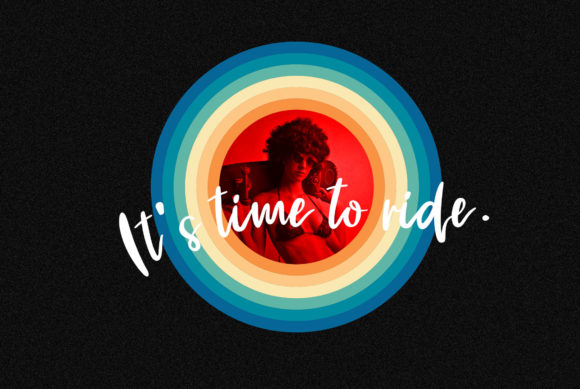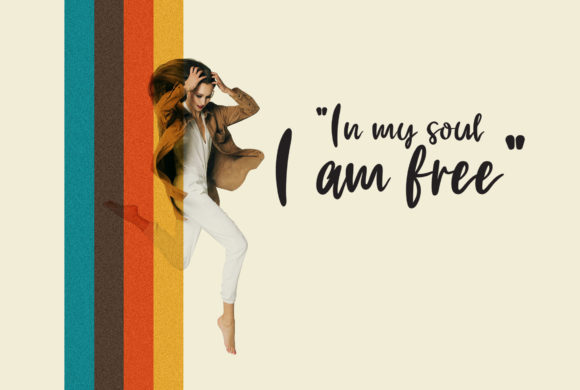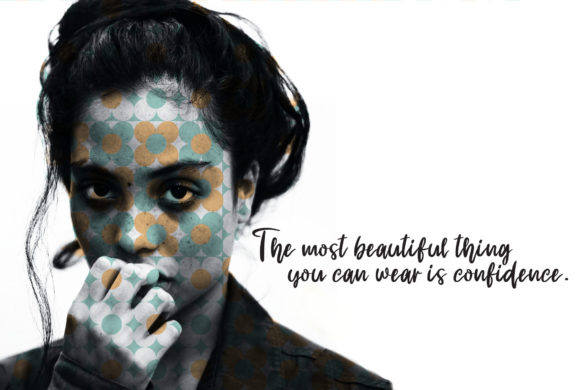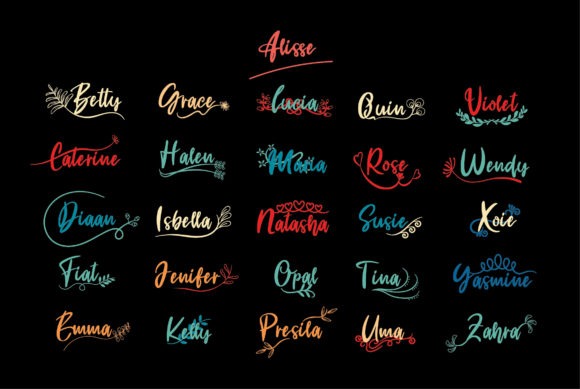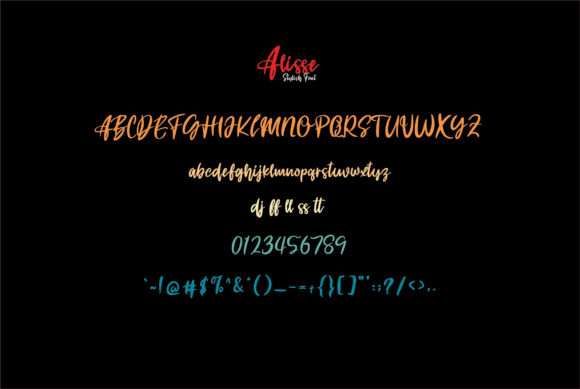
Unlock the Luxury in Your Design
As designers, we’ve all been there – staring at a blank canvas, eager to bring our vision to life. But what if that perfect font was just a click away? The moment you discover the perfect typography is like the spark that ignites a creative fire. For many designers, that spark comes in the form of a beautiful, elegant font that elevates their work to new heights.
Meet Alisse Font, a stunning light handwritten font that adds a touch of luxury to any design project. With its unique feel and captivating charm, Alisse Font is the perfect addition to your design arsenal. Whether you’re creating a luxury brand identity, a wedding invitation, or a fashion magazine, Alisse Font will add a sophisticated sparkle that sets your work apart.
As a valuable tool for designers, Alisse Font offers endless possibilities for creative expression. Its versatility and beauty make it a must-have for any design project, from corporate branding to artistic endeavors. So why settle for ordinary when you can have extraordinary with Alisse Font?
Alisse Font Key Features
- Font Family: Alisse is a script font designed to resemble handwritten text, ideal for creative and elegant typography.
- Character Set: The font includes a wide range of characters, including uppercase and lowercase letters, numbers, and punctuation marks.
- Font Size: Alisse font is available in a range of sizes, from 8pt to 72pt, making it suitable for various design applications.
- Resolution: Supports high-resolution displays, including Retina and 4K, ensuring crisp and clear typography.
- Unique Characteristics: Alisse font features a unique, handwritten style with subtle variations in letterforms, giving it a personal and artistic touch.
Alisse Font Review
Alisse Font is a beautiful and elegant script font that’s perfect for creative projects. I’ve been experimenting with it, and here’s my honest review.
- Unique and stylish design: Alisse Font has a distinct, cursive feel that sets it apart from other script fonts.
- Legibility: Despite its ornate design, Alisse Font is surprisingly readable, making it perfect for body text.
- Customization options: The font comes with various style and weight options, allowing you to fine-tune its appearance to suit your project’s needs.
- Limited language support: Alisse Font may not support all languages, which could be a concern for international projects.
- No bold or italic versions: While the font has various weights, there’s no bold or italic version available, which might limit its versatility.
- Not suitable for small text: Due to its intricate design, Alisse Font may not be ideal for small text sizes, as it can become difficult to read.
Overall, Alisse Font is a stunning script font that’s perfect for creative projects where elegance and sophistication are key. While it has some limitations, its unique design and customization options make it a great addition to any designer’s toolkit.
Tips: Use Alisse Font for elegant and sophisticated designs. Pair it with bold fonts for contrast and visual interest.
Tips: Use Alisse Font for professional and creative designs. Experiment with layer blending modes and opacity to achieve unique effects.
Tips: Use Alisse Font for presentations and reports. Use it for headings and titles to create a consistent and professional look.
Alisse Font is ideal for:
1. Wedding invitations and stationery
2. Luxury branding and packaging
3. High-end marketing materials
4. Creative and artistic projects
Alternatives to Alisse Font for Designers
Alisse Font is a popular font known for its elegant and sophisticated feel, making it suitable for high-end branding and design projects. However, there are several alternatives that offer similar qualities and can be used in different contexts.
Carolyna Pro is a modern script font that features a luxurious and refined feel, making it ideal for high-end branding, invitations, and wedding design. It has a more polished and refined look compared to Alisse Font, making it suitable for projects that require a more sophisticated tone.